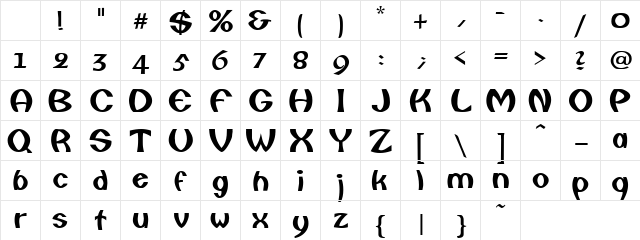
Complete Fisherman Regular glyph index. Displaying only characters natively supported by Fisherman Regular font.
Fisherman is a composed and adaptable typeface that performs quietly and consistently across a wide range of design contexts.